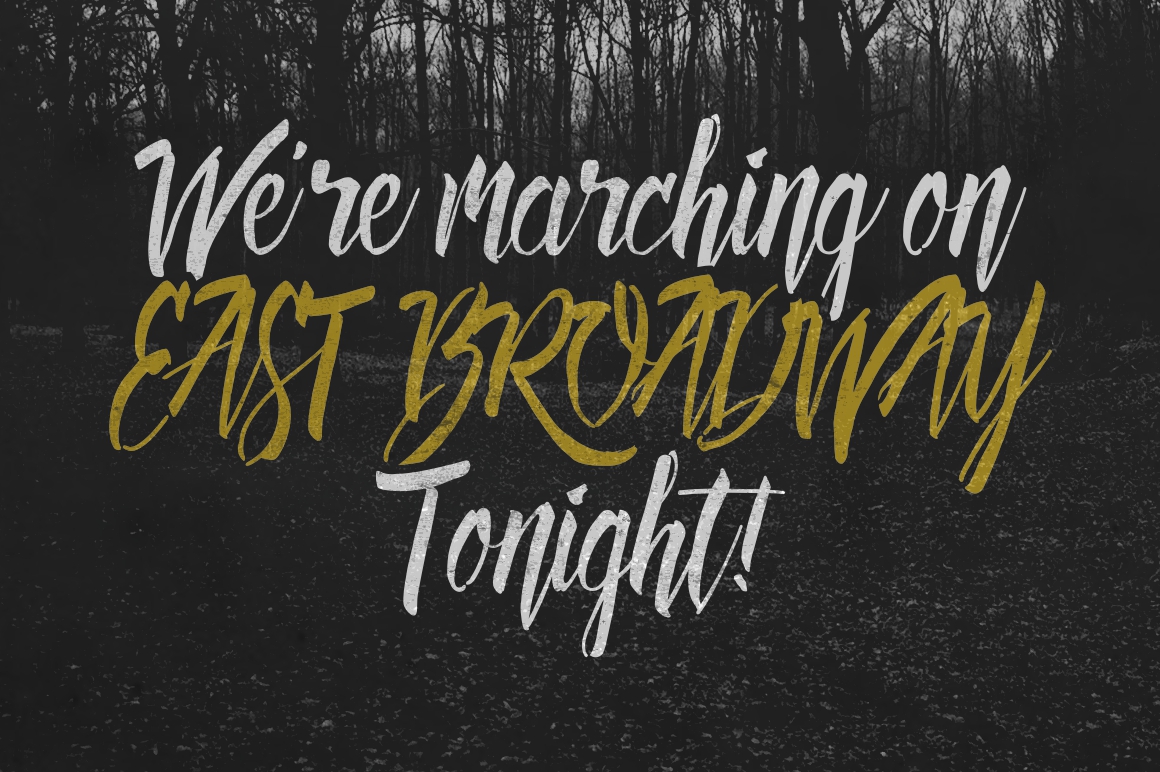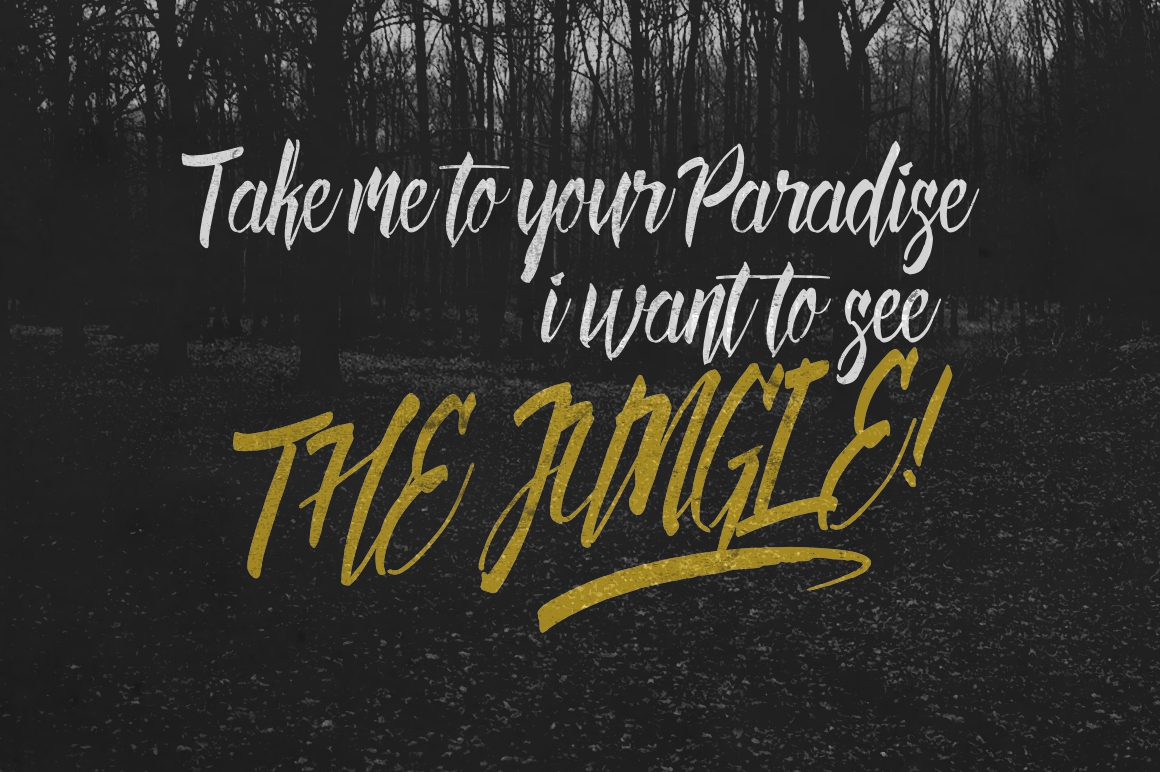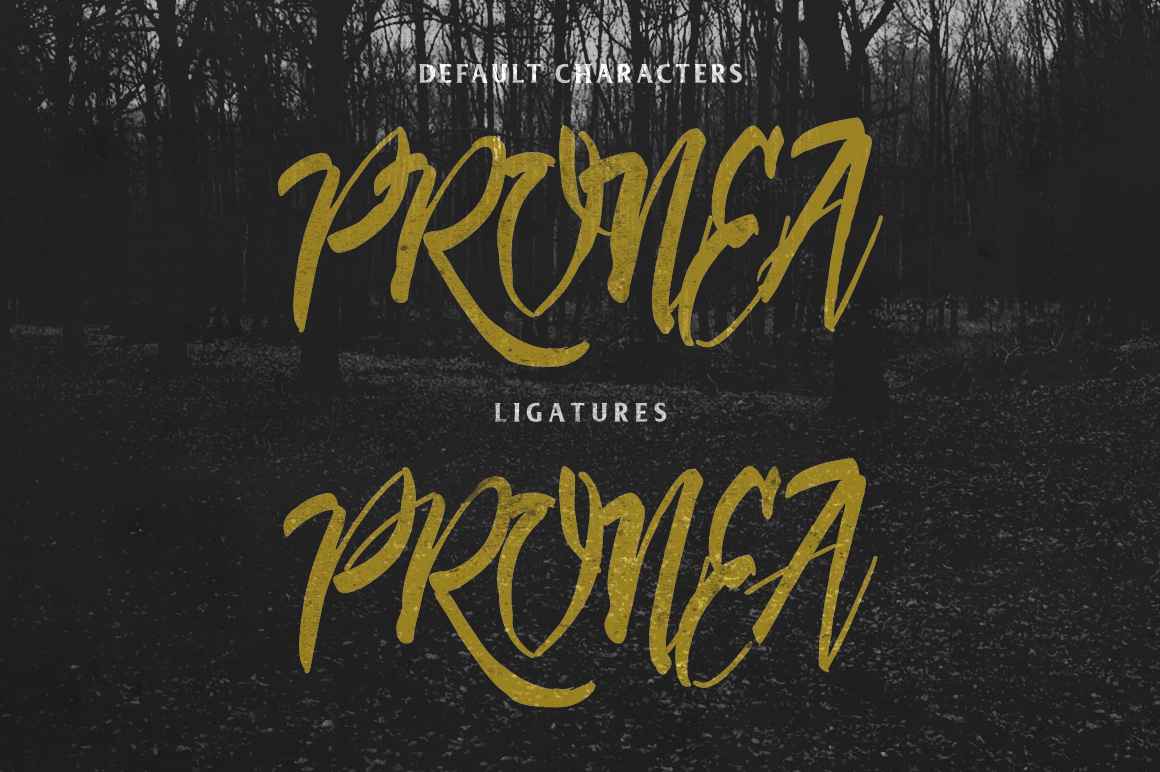
Introduction to Deadhead Brush Font
Deadhead Brush is a stunning script typeface that is crafted from hand-lettering using a traditional paint brush.
Its rough and jagged edges gives the font a natural feeling only found through hand brushed design .